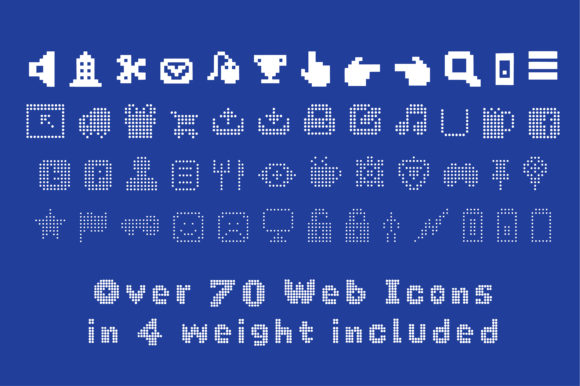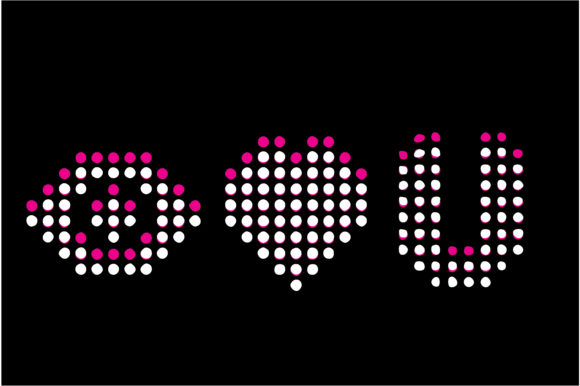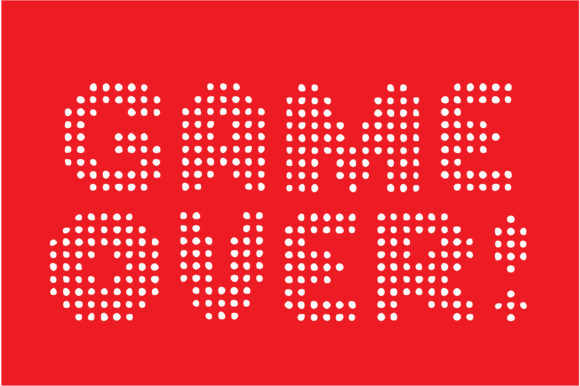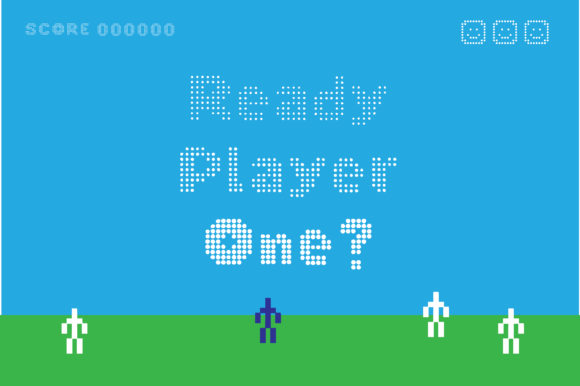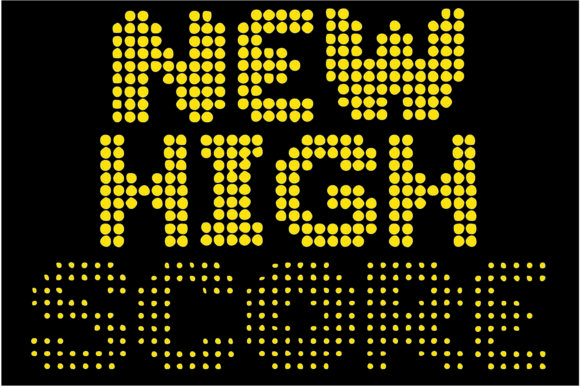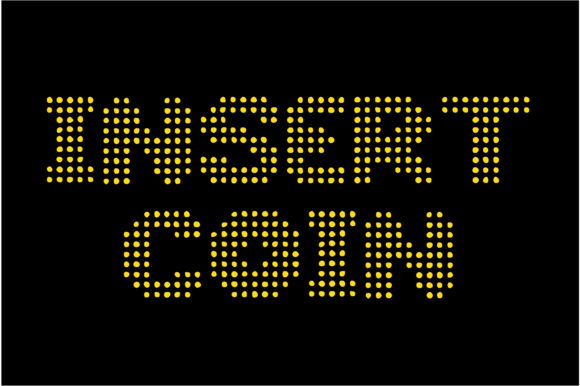
The Big Pixel Dot Font: A Game-Changer for Designers and Creators
I still remember the design project that led me to discover the Big Pixel Dot font. I was working on a futuristic-themed branding campaign for a tech startup, and I was struggling to find the perfect font that would capture the essence of innovation and cutting-edge technology. That’s when I stumbled upon Big Pixel Dot, a unique and bold display font with a distinct, technological feel. It was love at first sight! 💻
- 💥 **Impactful and attention-grabbing**: Big Pixel Dot is perfect for headlines, titles, and any text that needs to make a statement.
- 🔍 **Technological feel**: The font’s pixelated design gives it a futuristic and edgy vibe that’s perfect for tech, gaming, or sci-fi projects.
- 🎨 **Highly versatile**: Big Pixel Dot can be used for a wide range of design projects, from branding and advertising to packaging and digital media.
- ✅ **Easy to read**: Despite its bold and pixelated design, Big Pixel Dot is surprisingly easy to read, even at smaller sizes.
Small Quirks and Limitations ⚠️
While Big Pixel Dot is an amazing font, it’s not without its quirks. For example:
- 🤔 **Limited use for body text**: Due to its bold and pixelated design, Big Pixel Dot is not suitable for body text or long-form content.
- ⚠️ **May not work well with certain design styles**: Big Pixel Dot’s futuristic feel may not mesh well with more traditional or elegant design styles.
The Designer’s Inspiration: A Backstory
The creator of Big Pixel Dot was inspired by the early days of computing and the pixelated graphics of old video games. They wanted to capture the essence of that era’s futuristic and technological feel in a font that would be both bold and versatile.
Q: What is the best use for Big Pixel Dot?
A: Big Pixel Dot is perfect for headlines, titles, and any text that needs to make a statement. It’s ideal for tech, gaming, and sci-fi projects, as well as branding and advertising campaigns.
Q: Can I use Big Pixel Dot for body text?
A: While Big Pixel Dot is easy to read, it’s not suitable for body text or long-form content. Its bold and pixelated design is better suited for headlines and titles.